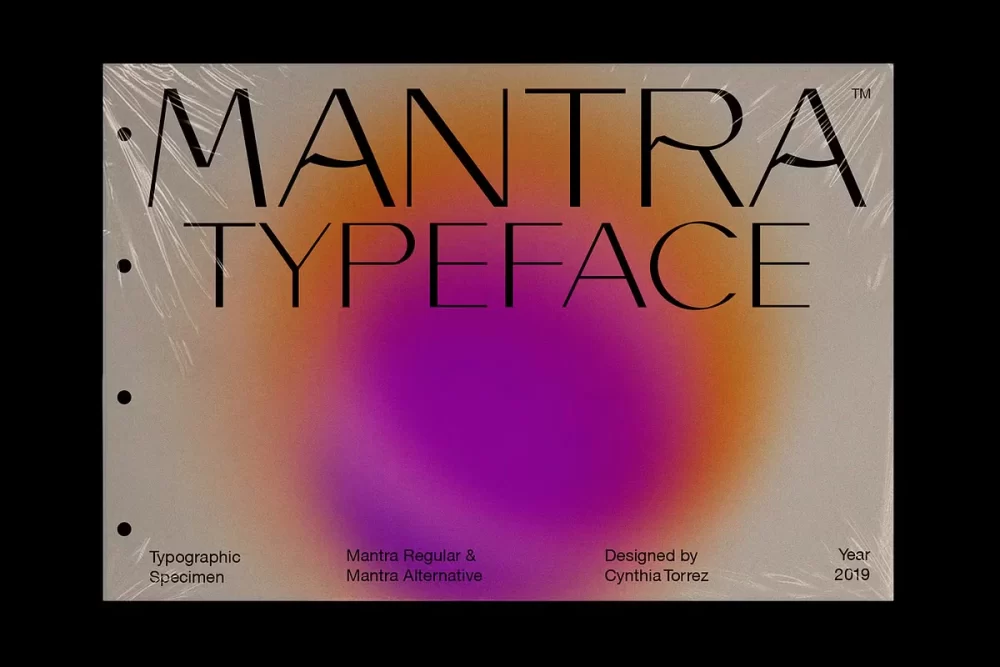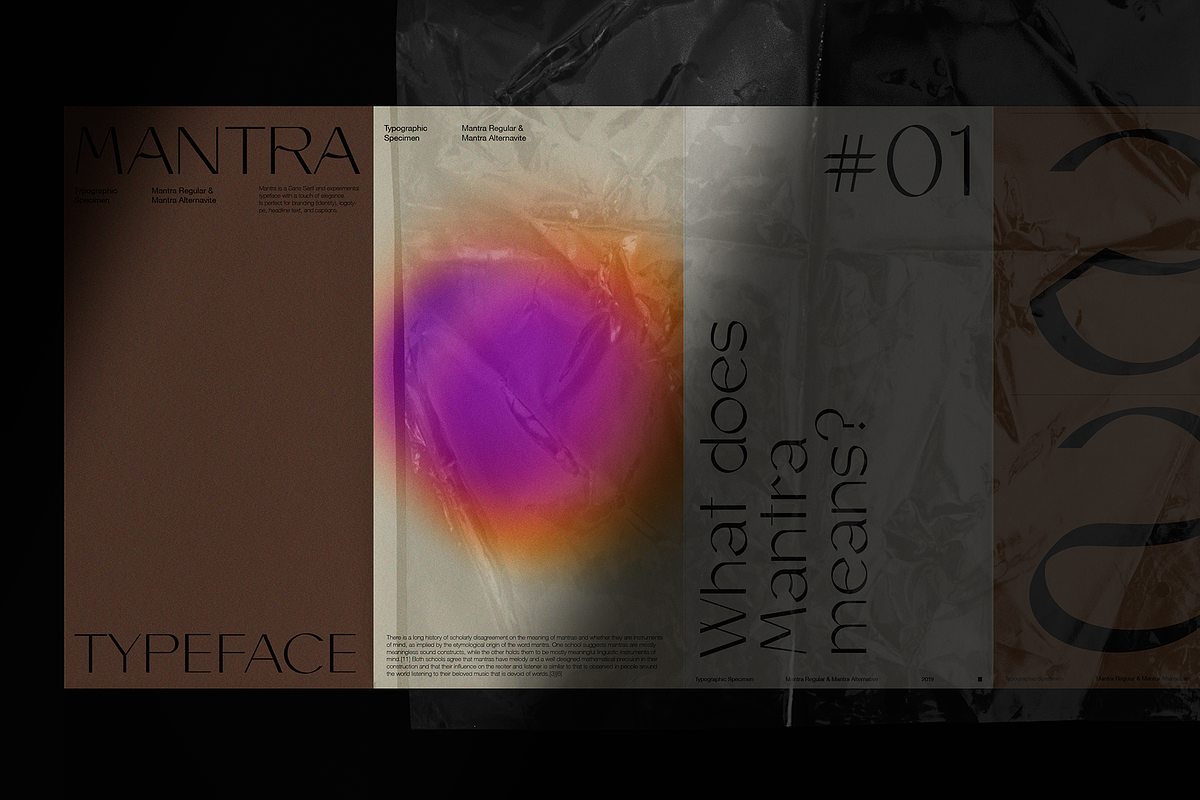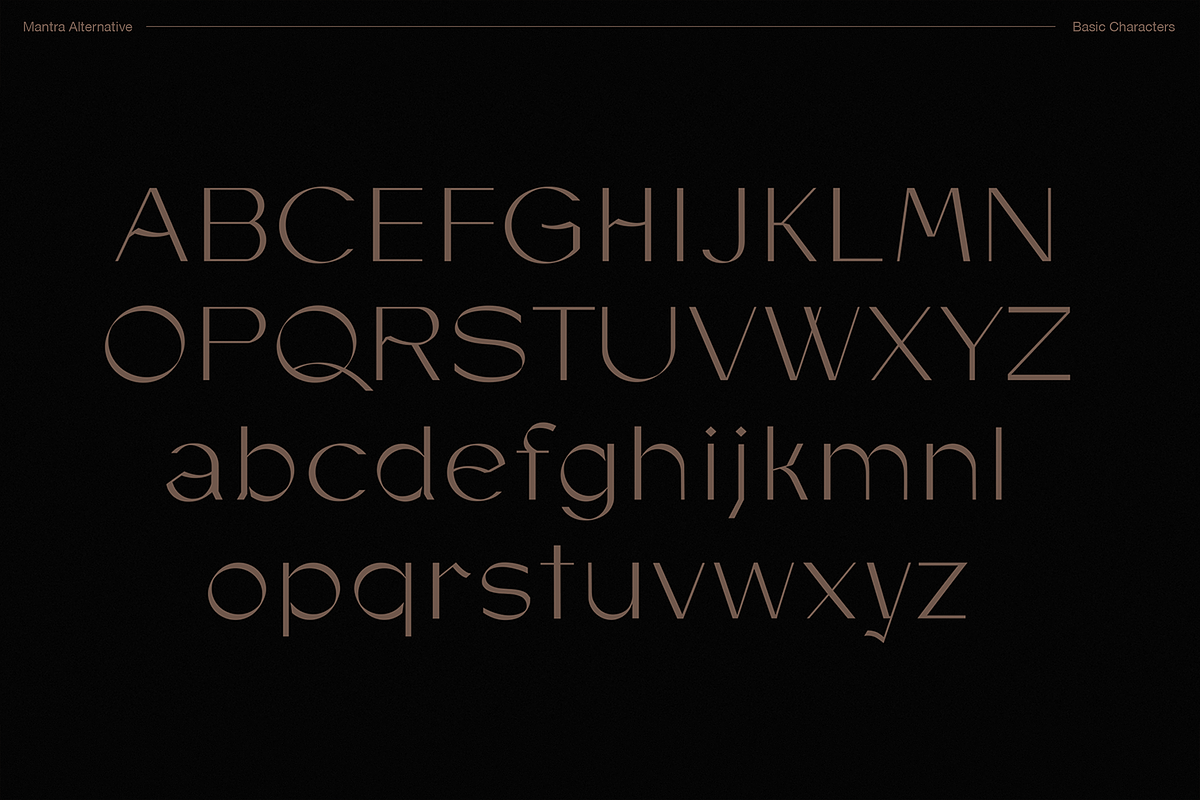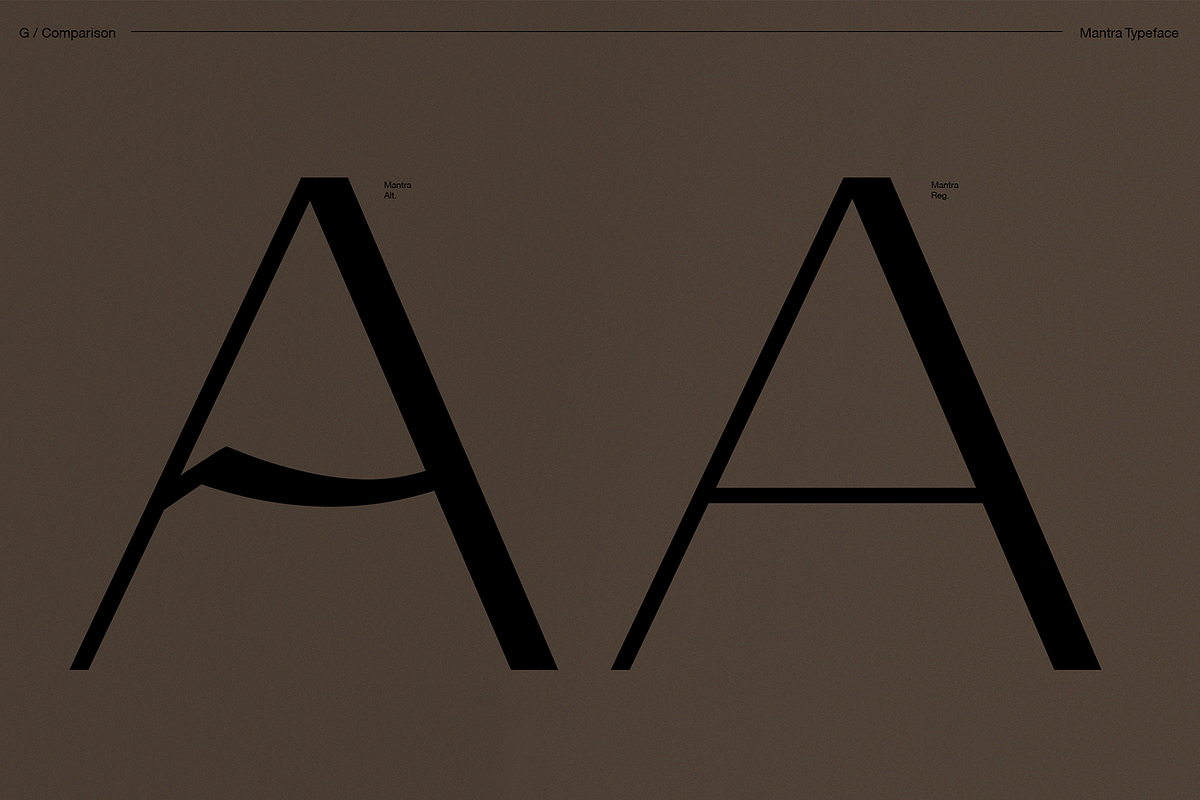
Mantra Font
Mantra is a sans-serif and experimental typeface. This ZIP file includes two variants of Mantra: Mantra Regular and Mantra Alternative. It is a creative and experimental design that challenges the norms of legibility and structure.